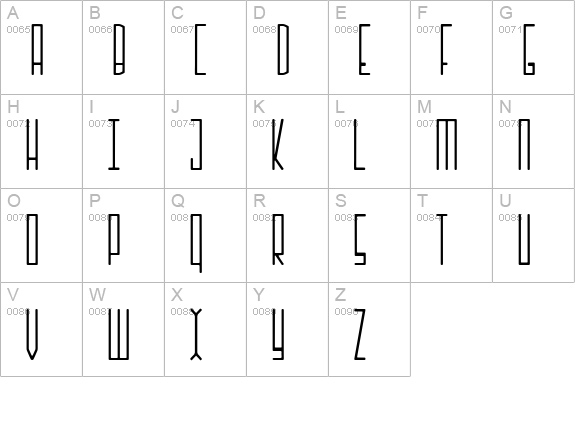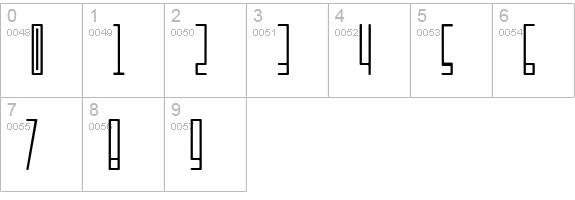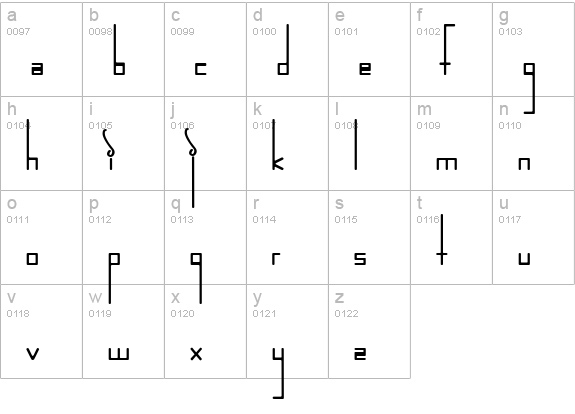
Incarnation Font Details
Introducing Incarnation, a beautifully crafted font that captures the essence of elegance and sophistication. Designed with intricate details and graceful curves, this typeface exudes a timeless charm that is sure to elevate any design project. Incarnation is a versatile font that can be used for a wide range of applications, from branding and logo design to editorial layouts and product packaging. Its clean lines and balanced proportions make it easy to read, while its unique flourishes add a touch of personality and flair. What sets Incarnation apart is not only its stunning visual appeal but also the fact that it is available for free. Yes, you read that right! Incarnation font is freely available to download at FontsMarket.com, a reputable online platform for font enthusiasts. This means that you can enjoy the beauty and versatility of Incarnation without having to spend a penny. Whether you are a professional designer or a hobbyist, Incarnation will undoubtedly become a valuable addition to your font library. Its wide range of weights and styles allows for endless creative possibilities, ensuring that you never run out of inspiration. From bold headlines to delicate script, this font has it all. So why wait? Embrace the beauty of Incarnation and enhance your designs with its timeless elegance. Download it for free today at FontsMarket.com and let your creativity soar.